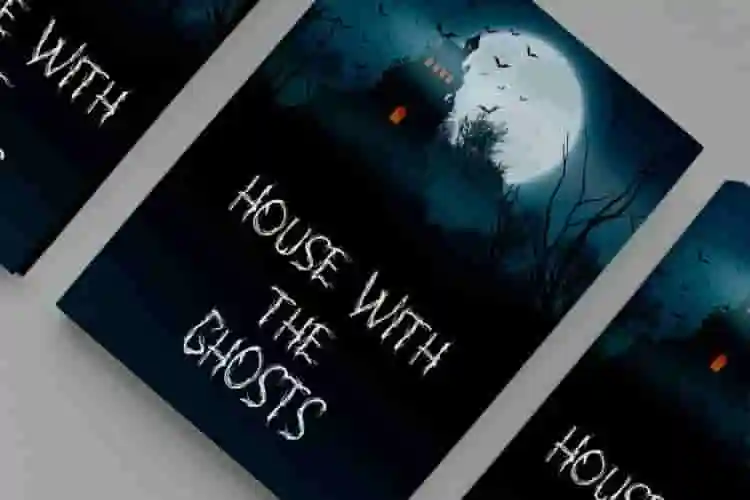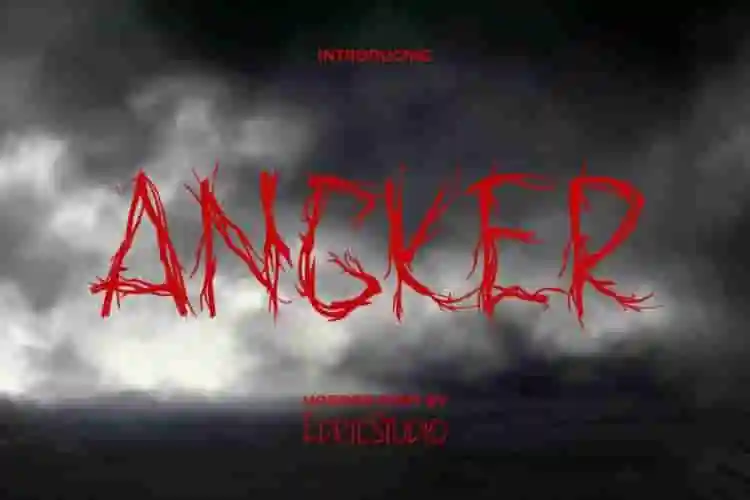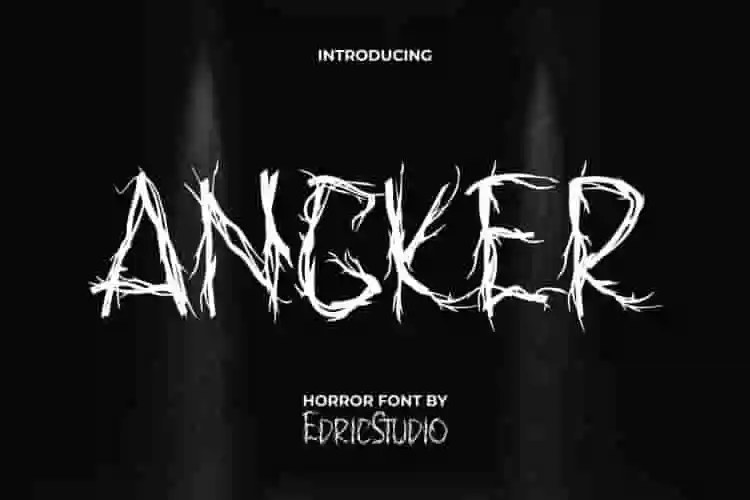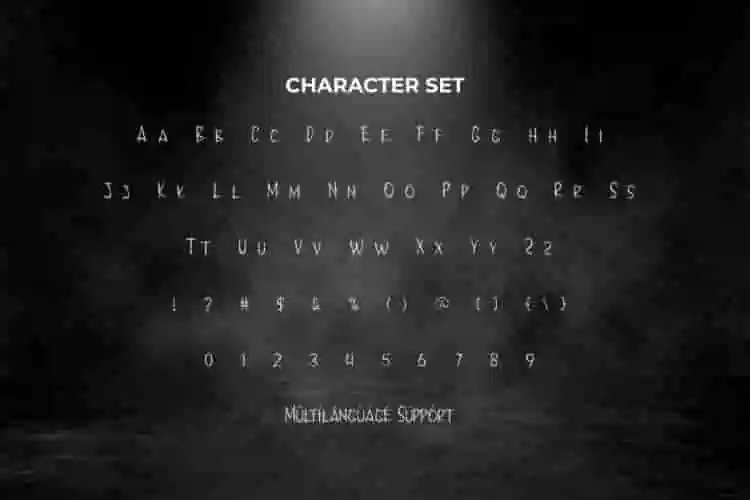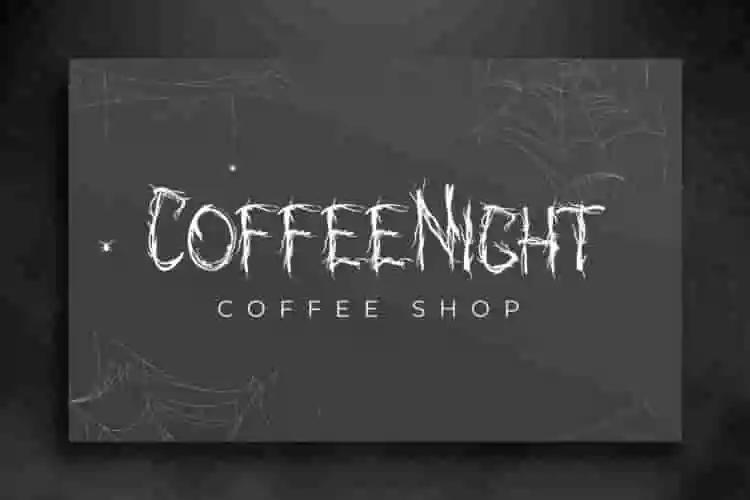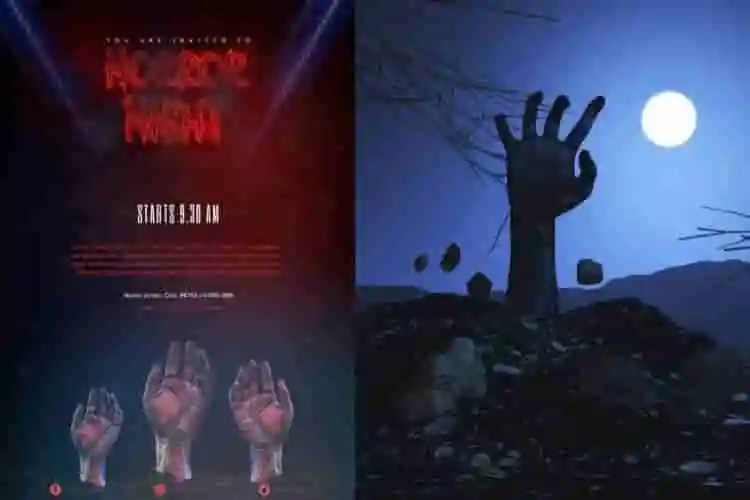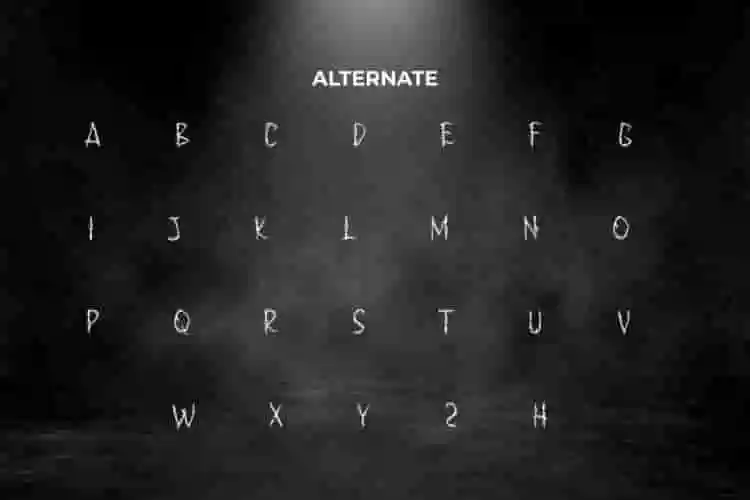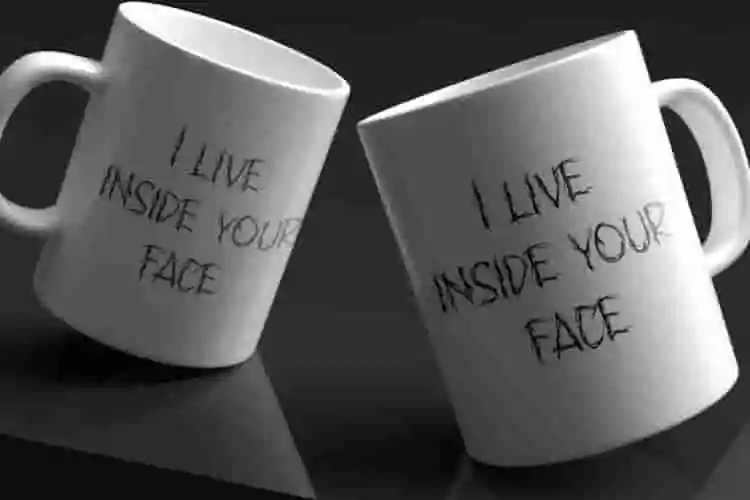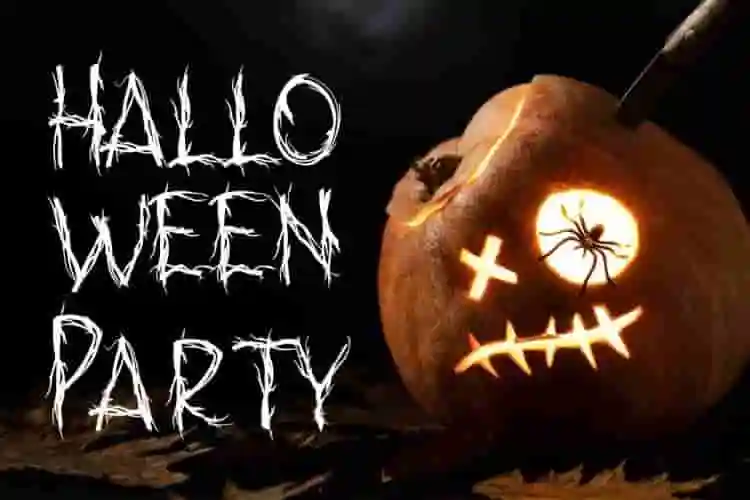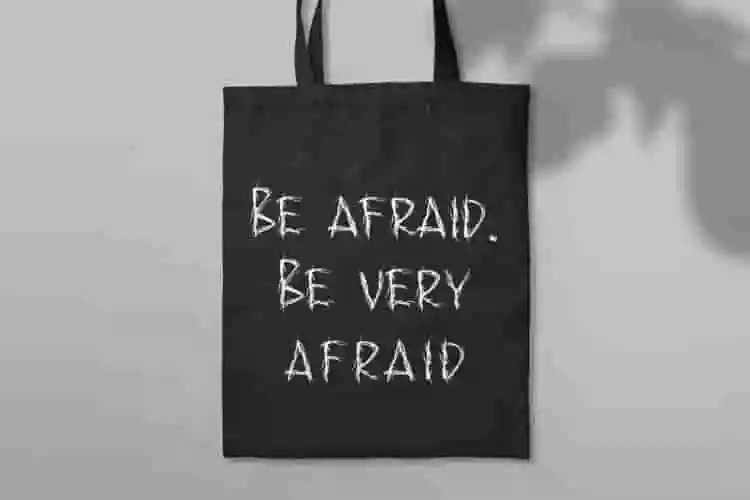
Angker Horror Display Font
Angker Font is a horror display font inspired by scary stories created by EdricStudio. This font feels very gripping, there are old root fibers that bind together and form a part of the letter that is suitable for any industry, such as accessories, band, café, clothing brand, craft, fashion, game, halloween party, homeware, movie, music, photography, printing, publishing, and many more.
Angker Font comes with full set of ALL CAPS for both Uppercase and Lowercase characters with different size, Number, a large range of Punctuation and Symbol. It has a stunning characters set, perfectly managed with well spaced and kerning. Angker Font also comes with additional alternative characters, will be able to complement for any project (with extended license) including: billboard, brand logo, brochure, business card, header, label, tote bag, poster, packaging design, screen print, stationary, sticker, website, etc.
Dare to design something truly haunting? Introducing Angker, a bold and chilling horror display font crafted to give your designs a sinister edge. Perfect for Halloween posters, horror movie titles, spooky t-shirts, and dark-themed branding, Angker drips with dread and attitude.
This unique font combines distorted shapes, grungy textures, and sharp edges to create a sense of fear and unease—making it the ultimate tool for any project that demands a horror vibe.
Step into the shadows with Angker, a spine-chilling horror display font designed to send shivers down your audience’s spine. This bold, textured typeface is perfect for horror-themed posters, Halloween events, movie titles, metal band merch, and any project that needs a terrifying edge.
• Creepy, Distorted Letterforms
• Grunge Texture Built-In